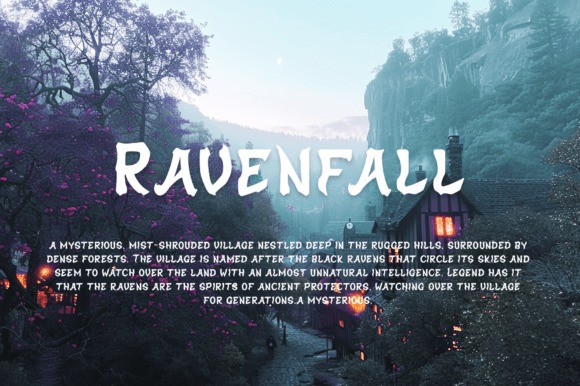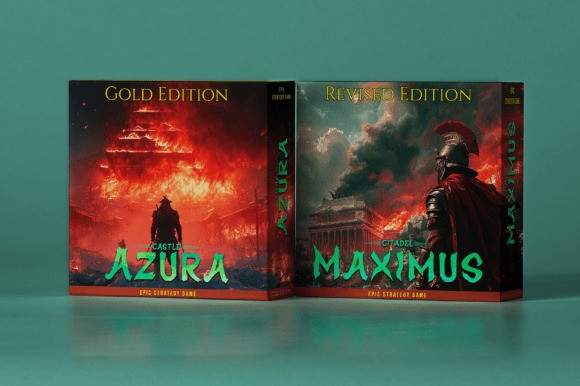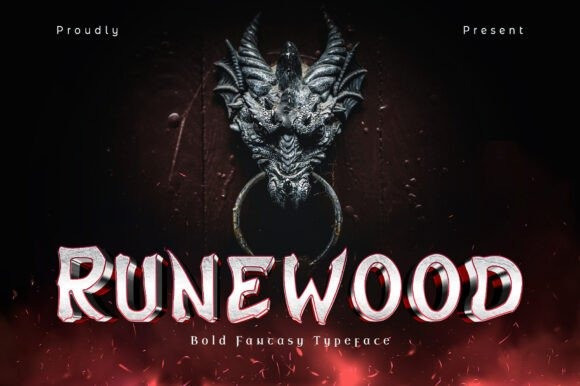
Runewood Display Font
Runewood Display Font is a bold fantasy typeface inspired by medieval runes and dark forests. Its sharp, jagged edges and thick strokes evoke a sense of mystery, magic, and power, making it perfect for fantasy-themed projects. Whether you’re designing for a game, book cover, or a mystical brand, Runewood captures the essence of ancient lore and otherworldly adventures. Its unique style stands out in both headers and titles, ensuring your message is conveyed with strength and elegance.